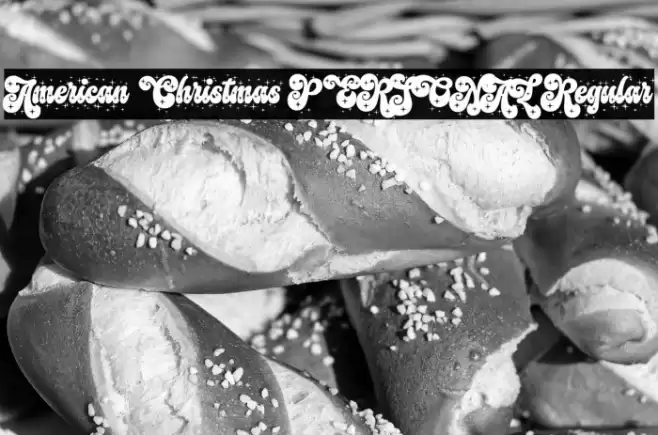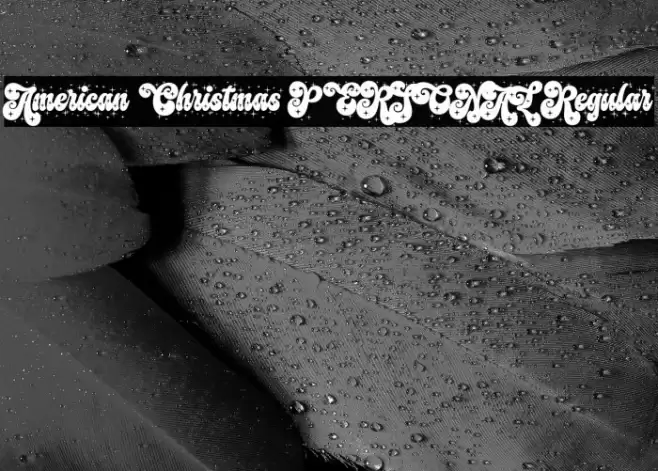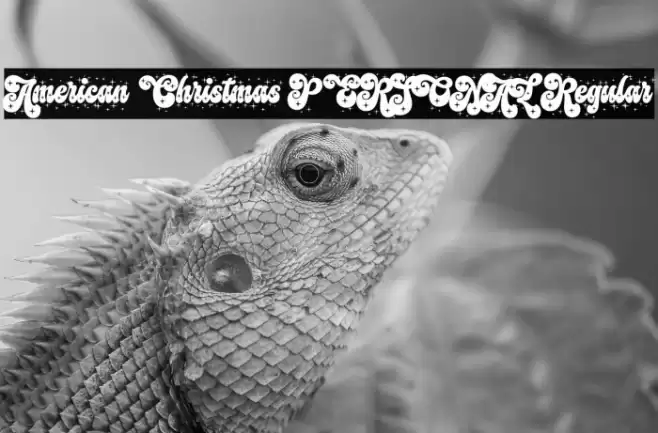
American Christmas PERSONAL Regular Font
American Christmas PERSONAL Regular Description
This font features a whimsical and festive design, characterized by its bold, flowing script style. Each letter is adorned with decorative stars, adding a playful and celebratory touch. The strokes are thick and rounded, creating a sense of warmth and joy. The overall appearance is reminiscent of holiday cheer, making it ideal for seasonal projects. The uppercase and lowercase letters maintain a consistent style, while the numbers and special characters are equally embellished, ensuring a cohesive look across all text elements.
A festive, star-adorned script font perfect for holiday themes from Christmas (Xmas) fonts.